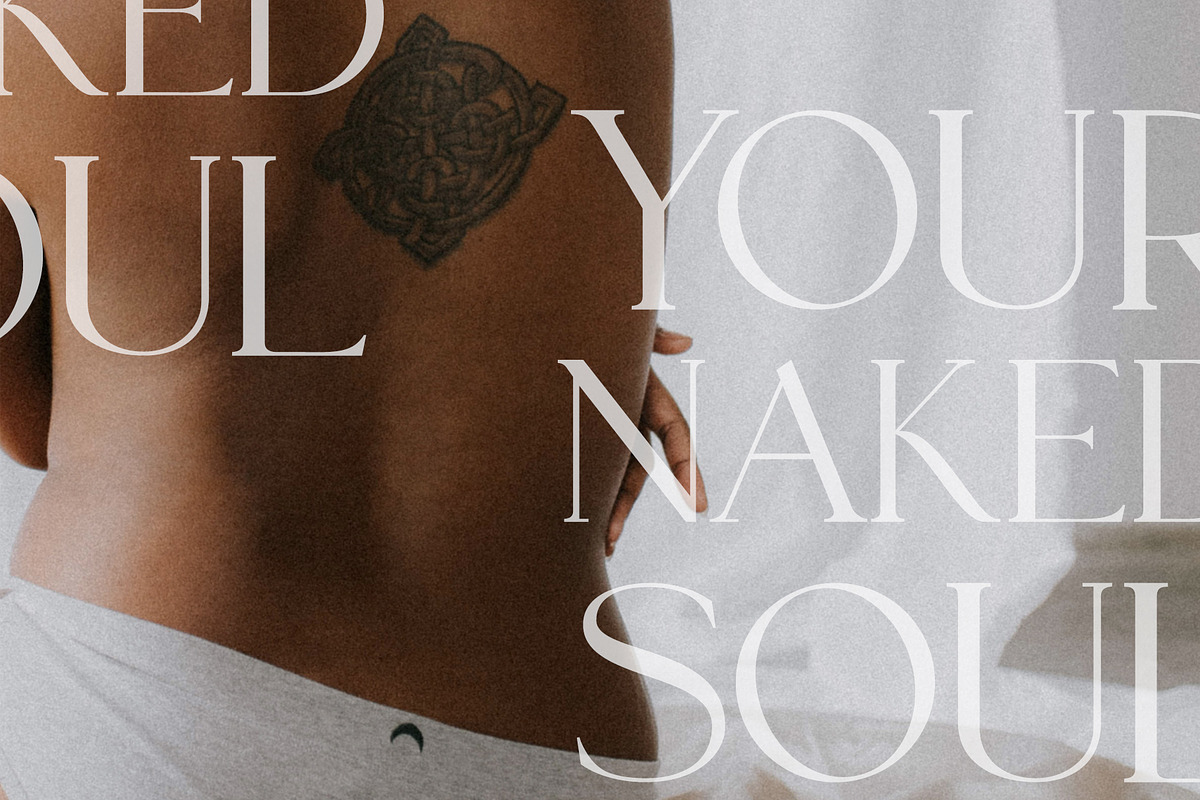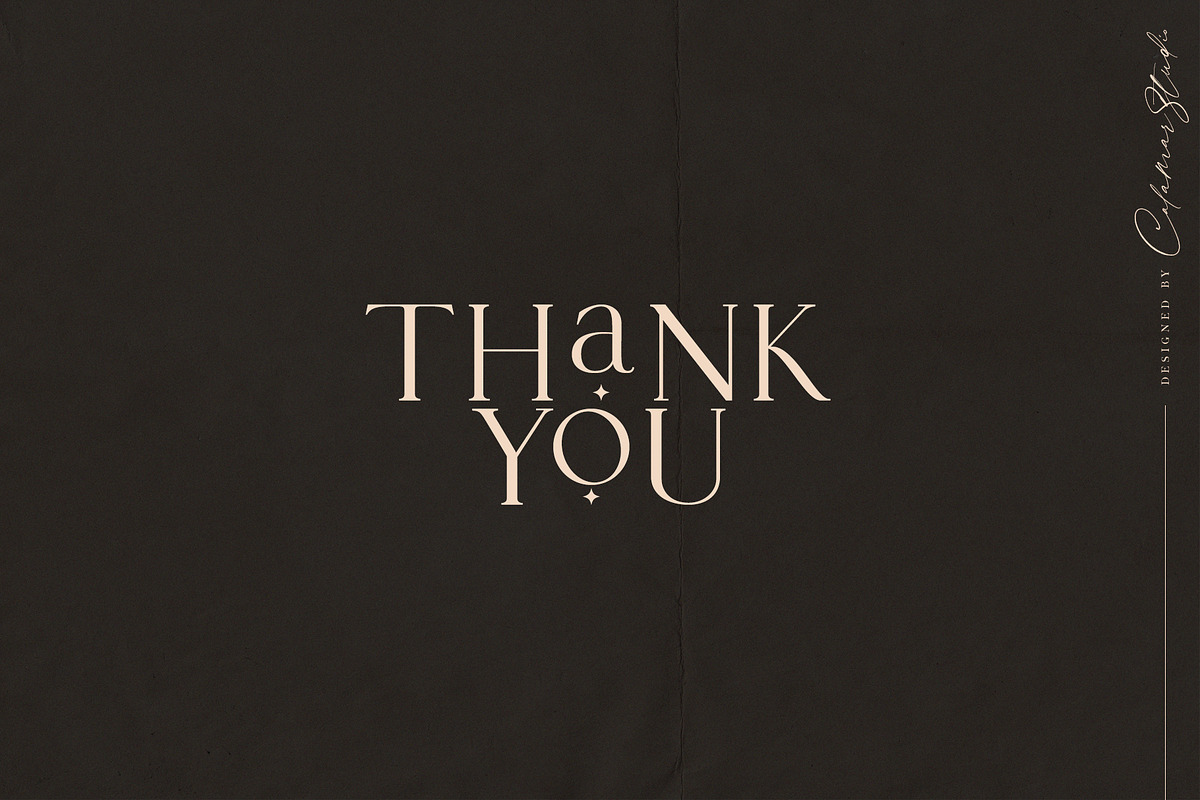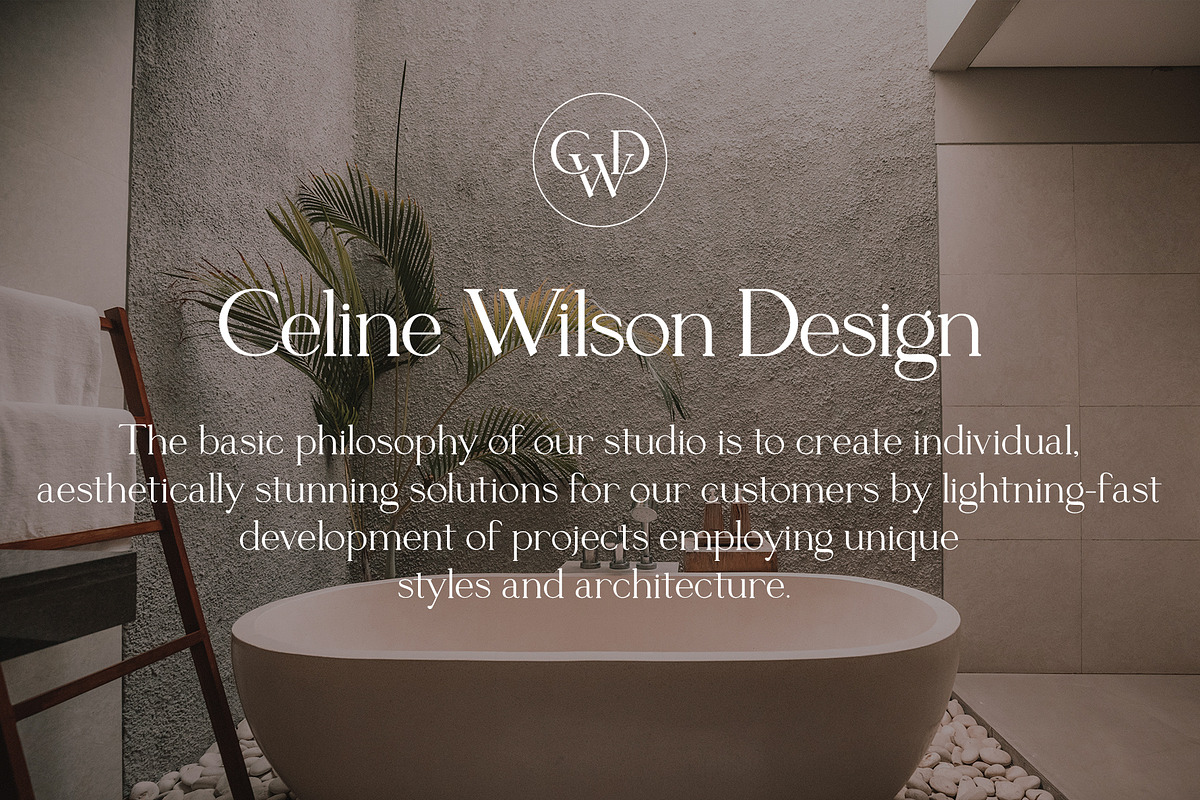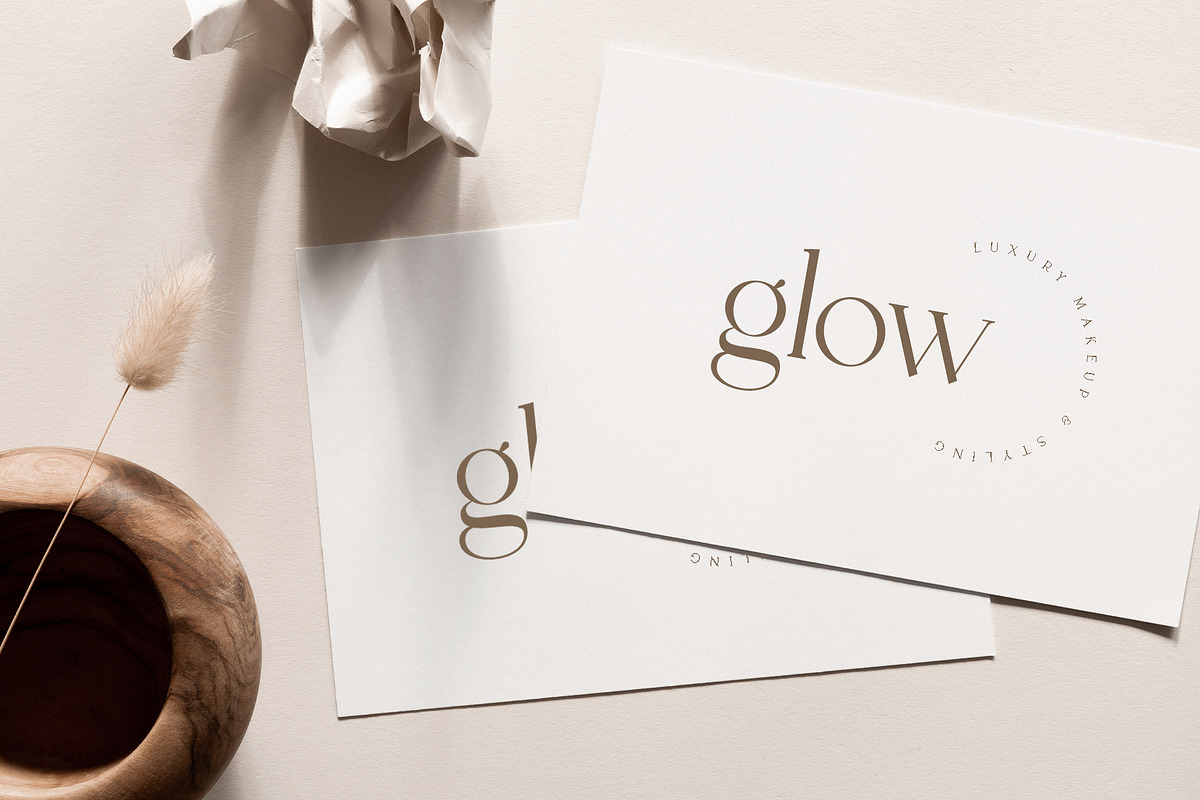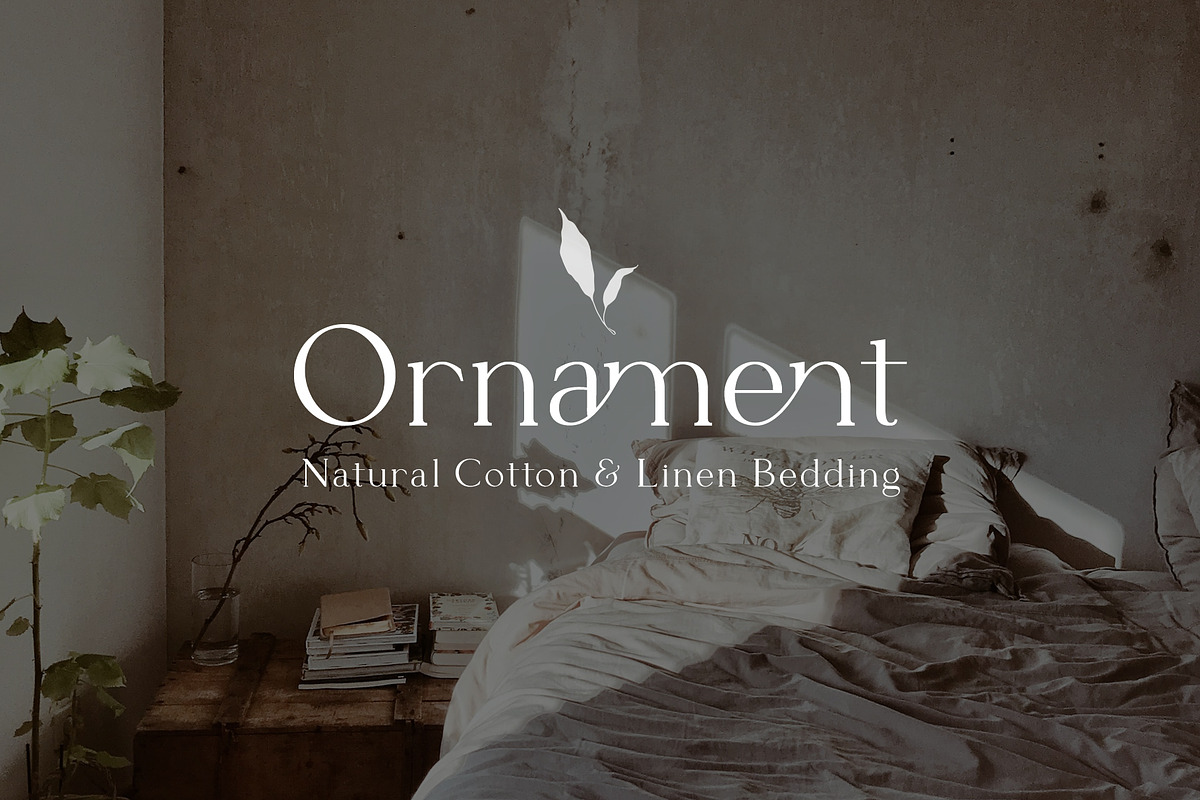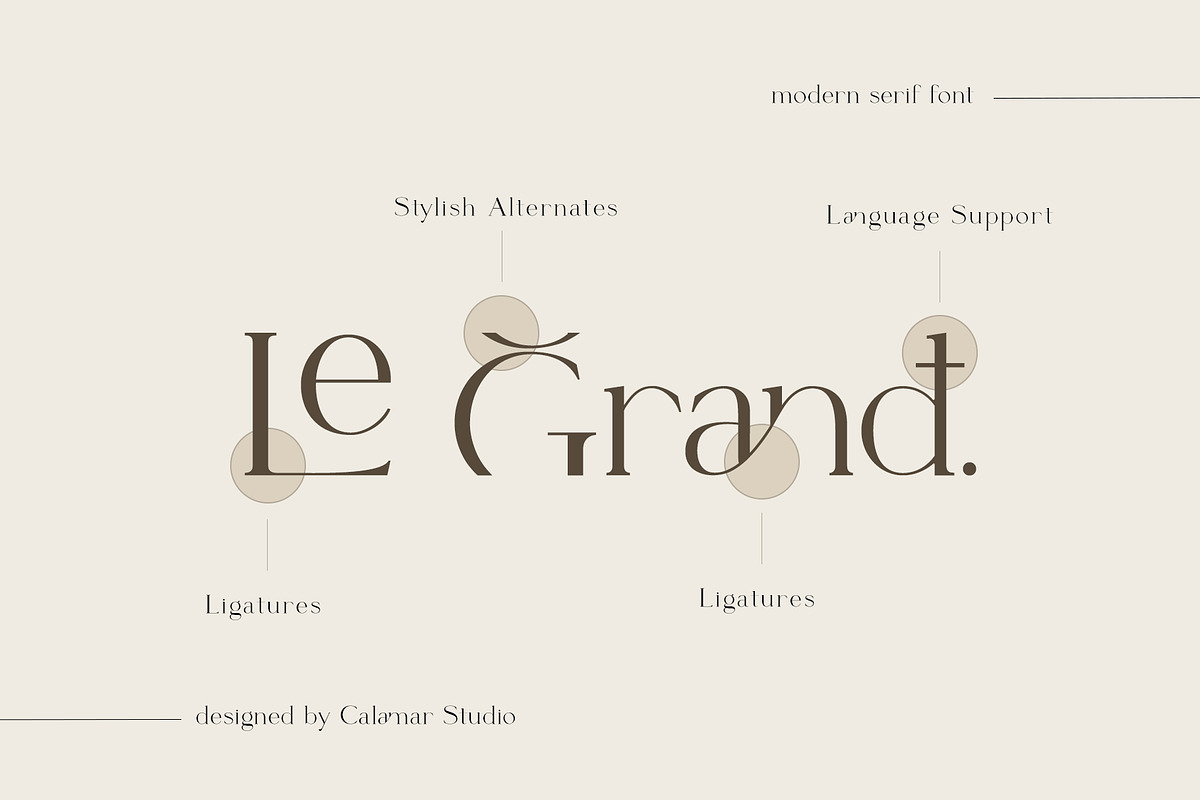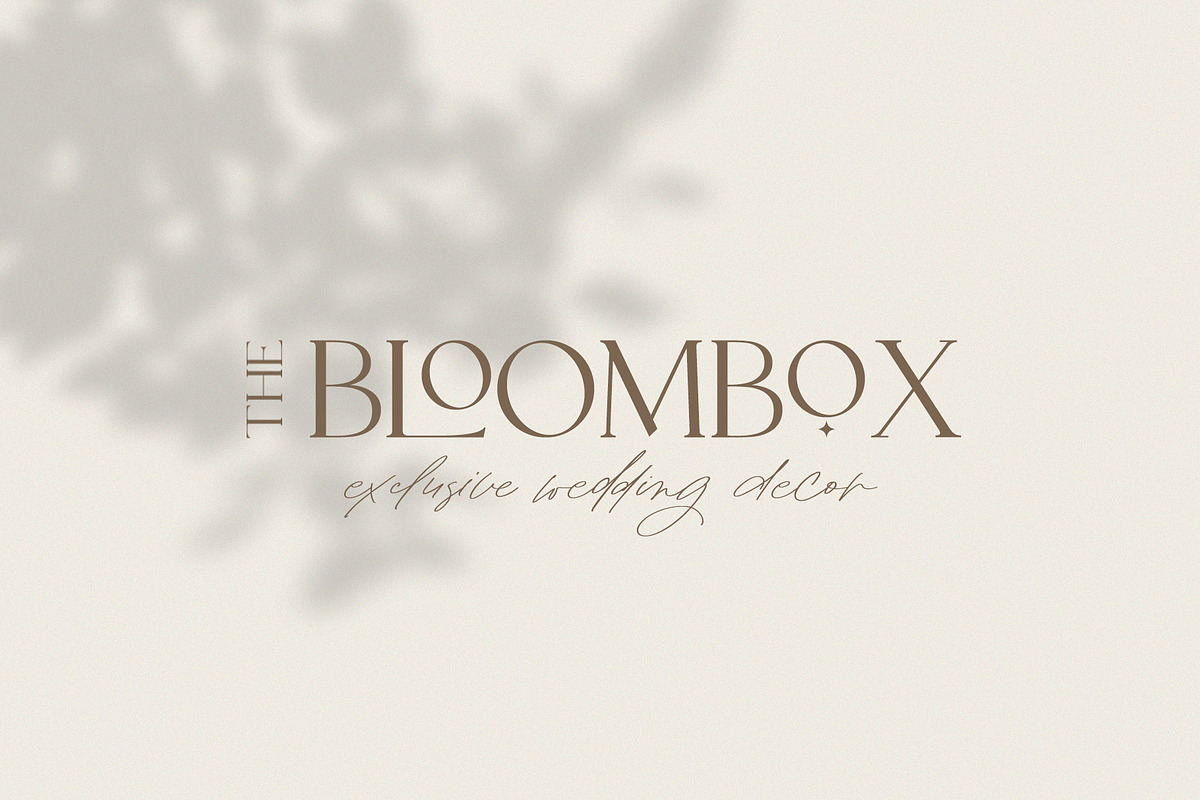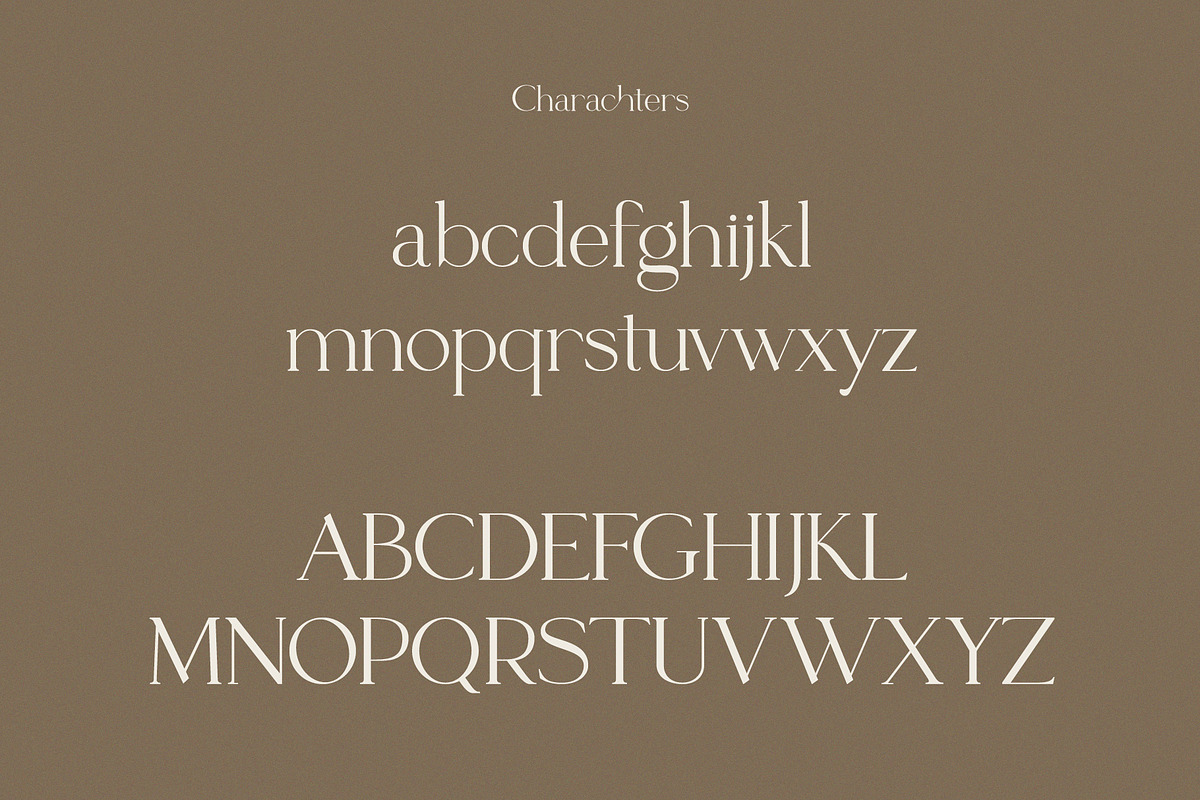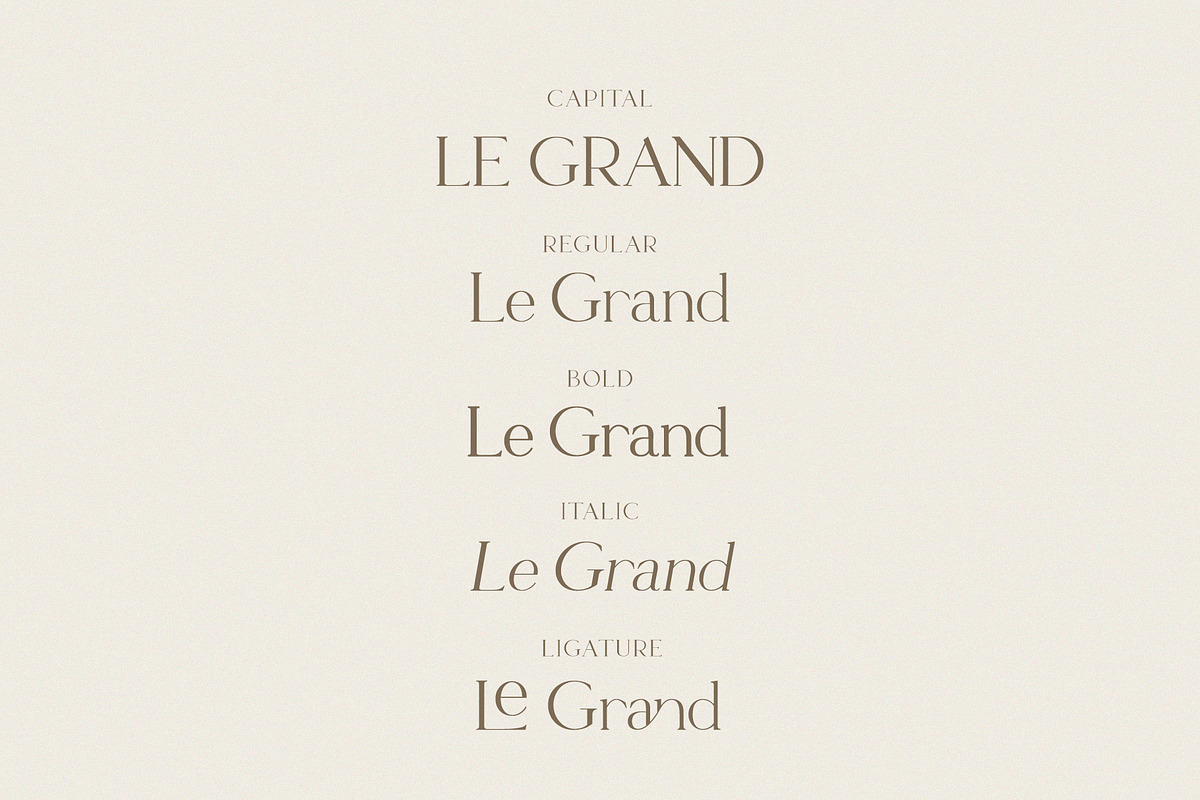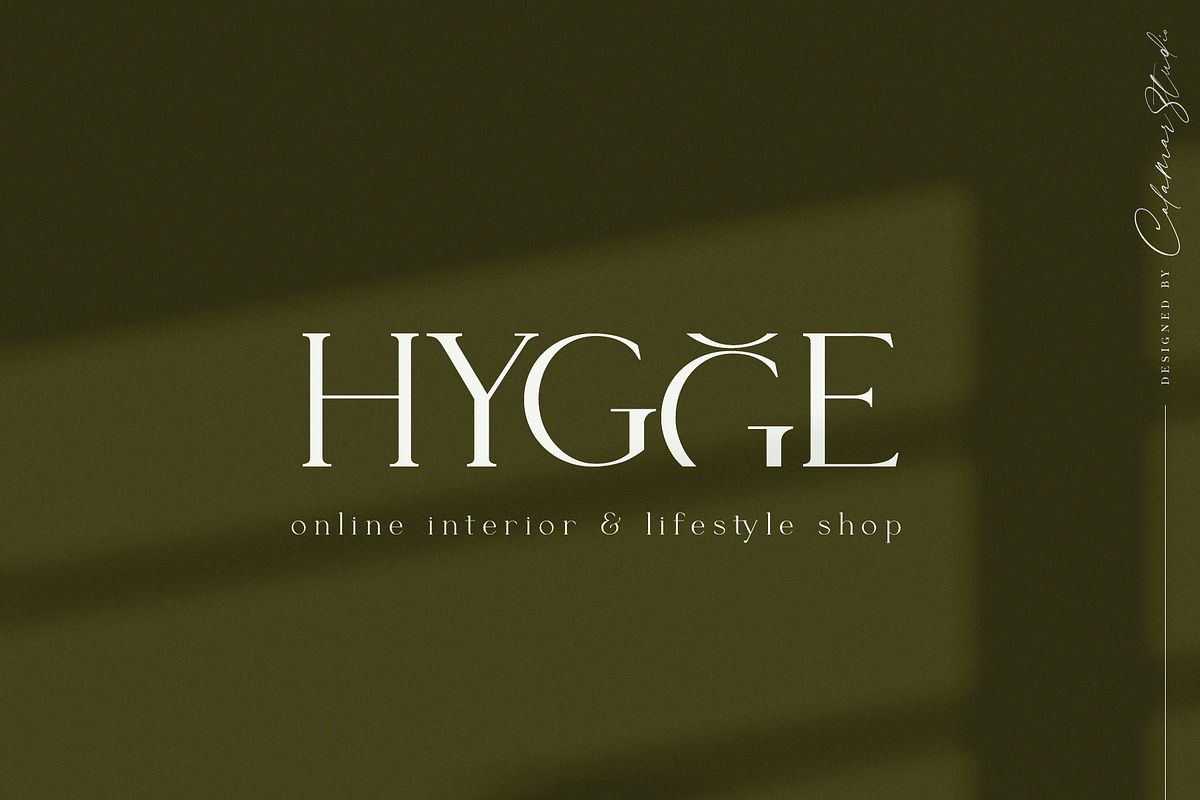
Le Grand | Serif Ligature Font
Le Grand is an elegant & modern typeface that uses ligatures to smoothly link letters. It's perfect for logos, wedding monograms or pull quotes. Flip through the previews above to get some inspiration and to see what you can make with this font.
Le Grand Typeface includes regular, italic and bold versions. Also for more easier usage I've created Ligature and Capital Serifs. All gorgeous ligatures in these versions turn on automatically and you don't need any special programs to use them.
This font has 42 ligatures as well as alternate characters, numerals and punctuation making it super flexible.
Add a touch of luxury and style to your projects too, with the new Le Grand Typeface!